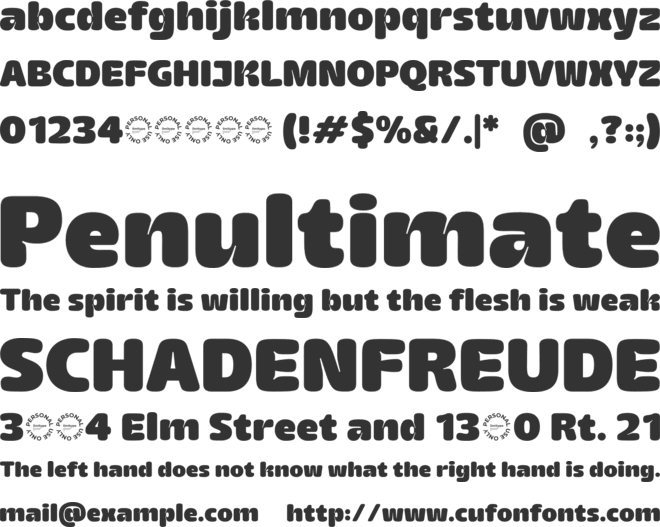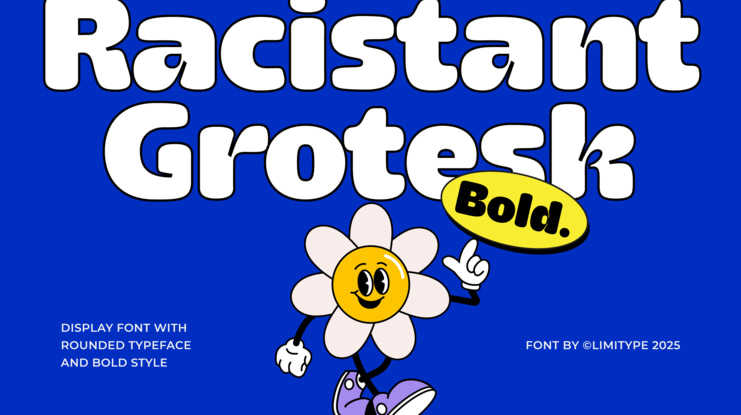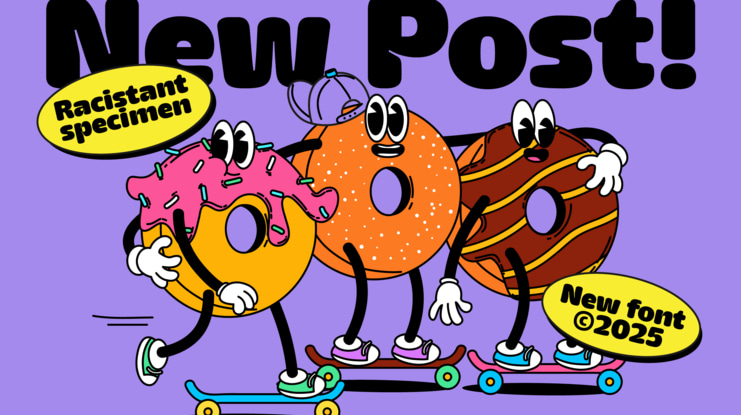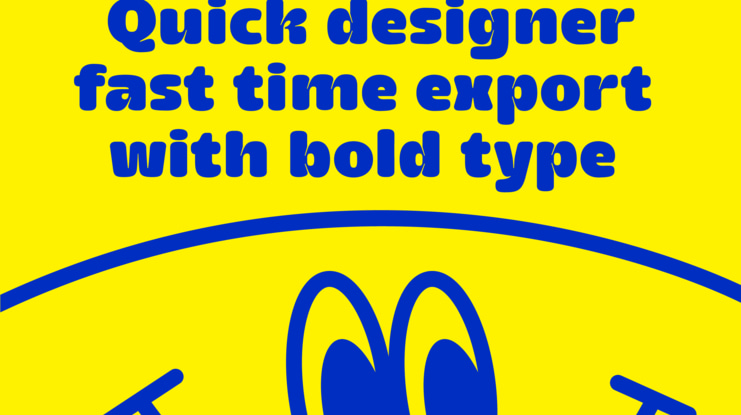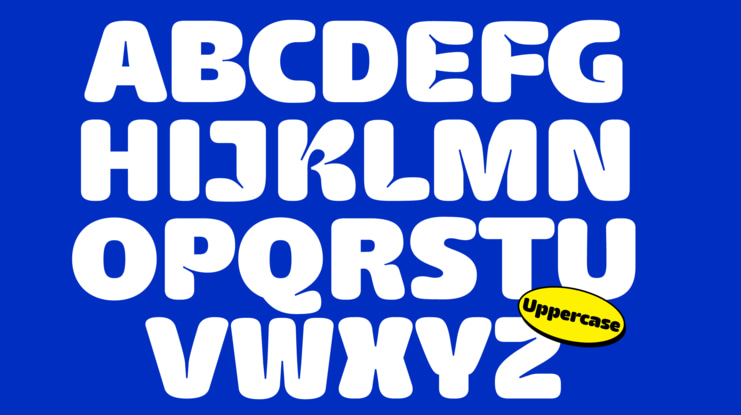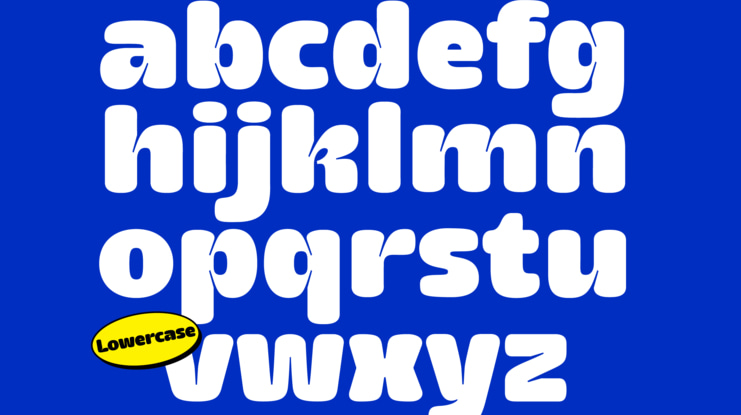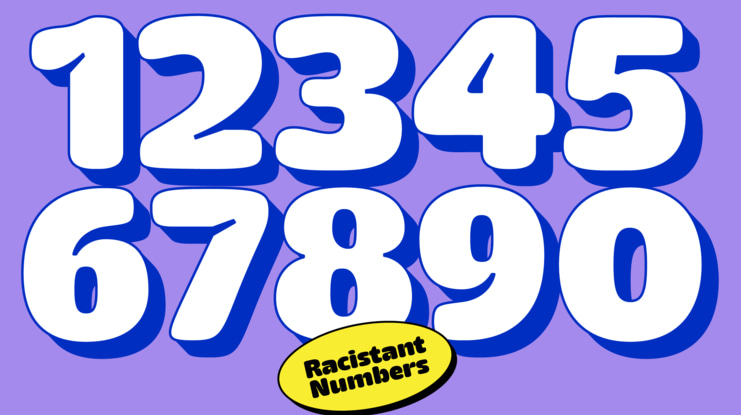
Racistant Font
Racistant is a modern display font featuring a smooth, rounded style that gives it a friendly yet professional look. Unique inktrap details on several characters add personality and make it stand out. Perfect for large, eye-catching titles or headlines that need to be bold, clear, and modern without feeling too rigid.
Racistant font preview